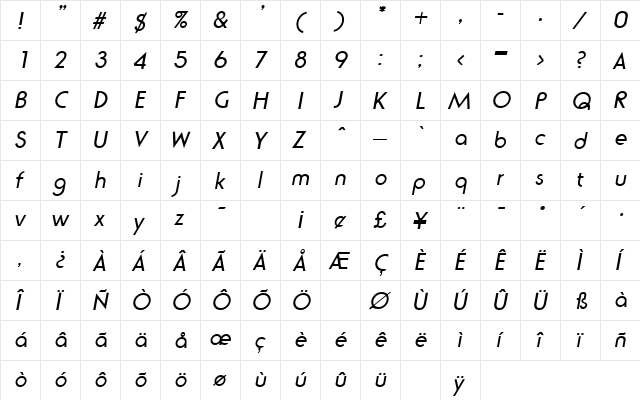
Ronda Italic
Design Context for Ronda Typeface
Ronda takes a measured approach to typography — its balanced proportions and neutral character make it a reliable workhorse for both digital and print work. Its italic angle brings a sense of urgency and motion to the letterforms.
Pro Tip: Use Ronda for emphasis, pull quotes, and subheadings where its slanted energy can add rhythm to the layout.